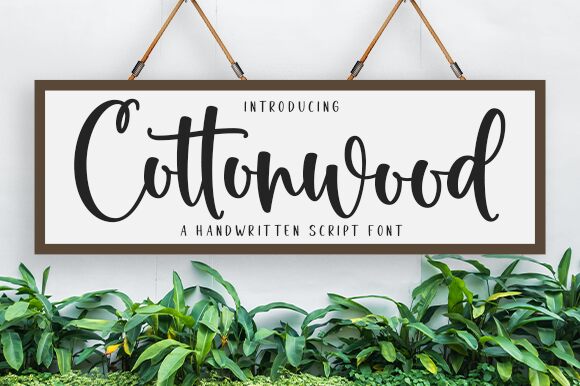
Cottonwood
Cottonwood emerges from the creative minds at Graphix Line Studio as a semi-light calligraphy font that embodies elegance and fluidity. Its delicate, handcrafted aesthetic brings a personal touch to every design it graces. With beautifully balanced characters, Cottonwood is versatile enough to enhance diverse creative projects, whether you're crafting wedding invitations, designing branding materials, or adding a touch of sophistication to editorial content.
This font's charm lies in its ability to convey warmth and authenticity, making it an exceptional choice for designers seeking to create a memorable visual narrative.